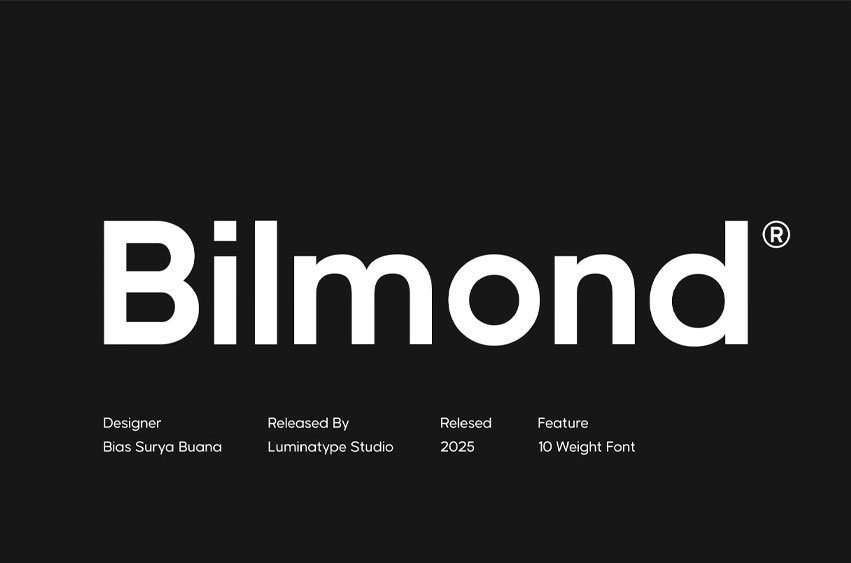
LT Bilmond Font is a geometric sans serif font carefully crafted by Luminatype Studio. This artistically versatile font set boasts an impressive range of 10 weights, from the lightest of thins to the most commanding extra blacks.
Ideal for shaping identities in branding, enhancing legibility in reading materials, tailoring sleek logo designs, and integrating seamlessly into both technology interfaces and websites.
Bilmond’s adaptability makes it an asset in a multitude of design contexts. Explore the dynamic depths of Bilmond and bring your design adventure with Bilmond Font.